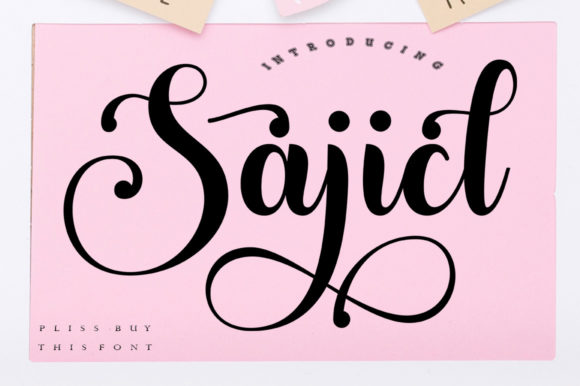
Prepare yourself to be mesmerized by Sajicl, a stunning script font that exudes elegance and sophistication, captivating the hearts of designers and typography enthusiasts alike. Its graceful curves and delicate strokes create a visual masterpiece that adds a touch of luxury to any project.
Unleash your creativity with Sajicl, the perfect font for crafting captivating logos, alluring branding designs, and eye-catching social media posts that leave a lasting impression. Its versatility extends to wedding invitations, greeting cards, and posters, allowing you to express your heartfelt messages with a unique and personal touch.
With Sajicl, your designs will radiate an aura of timeless elegance, evoking a sense of wonder and appreciation. Its PUA encoding grants you access to an array of charming glyphs and ligatures, empowering you to add intricate details and flourishes that elevate your creations to new heights.
Step into the world of Sajicl and discover a font that captures the essence of grace and beauty. Its ability to seamlessly blend with various design styles, from classic to contemporary, makes it an indispensable tool for any designer seeking to captivate and inspire.